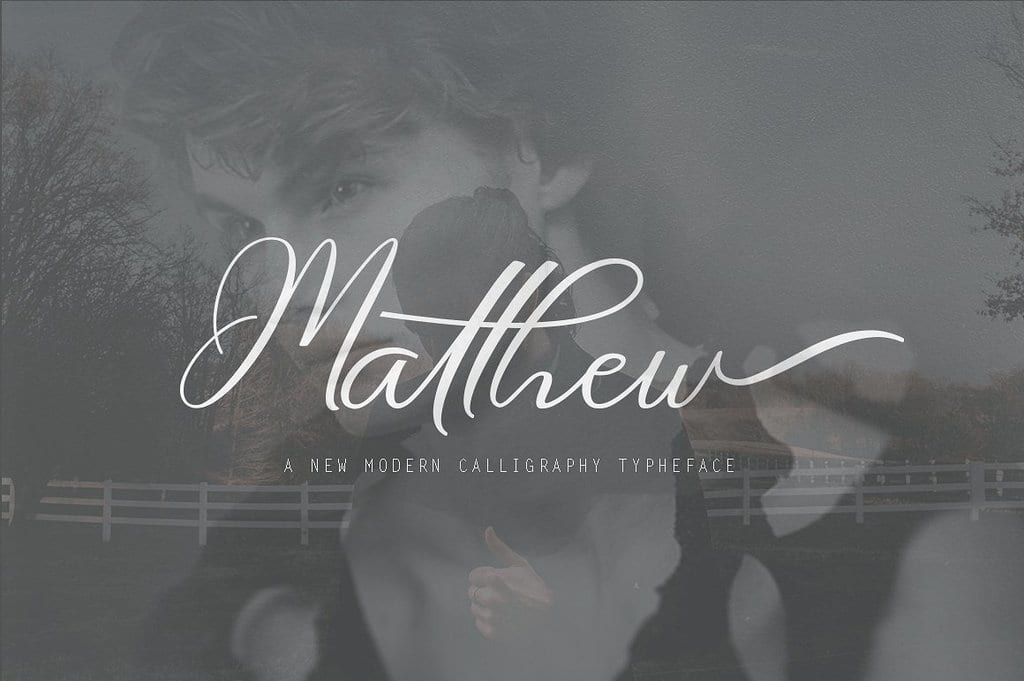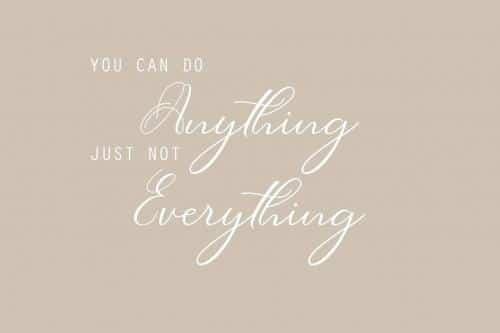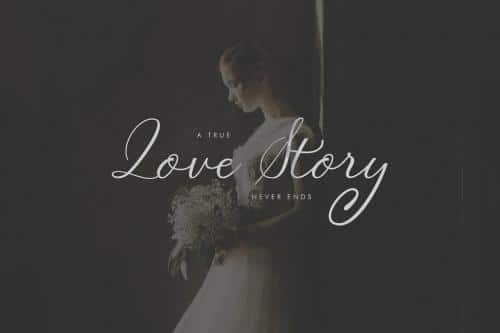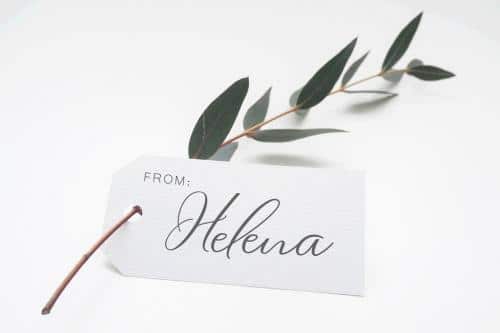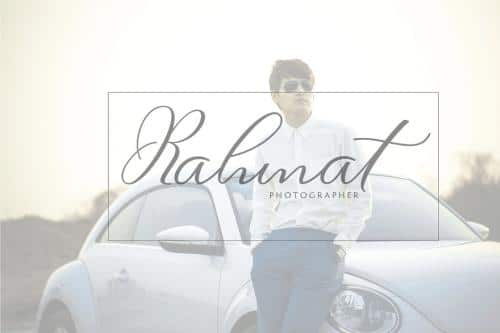
Matthew is another lovely modern calligraphy typefaces, which is combining the style of classic calligraphy with an modern style.
Combines from copperplate to contemporary typeface with a dancing baseline, modern and elegant touch. including initial and terminal letters, alternates, ligatures and multiple language support..